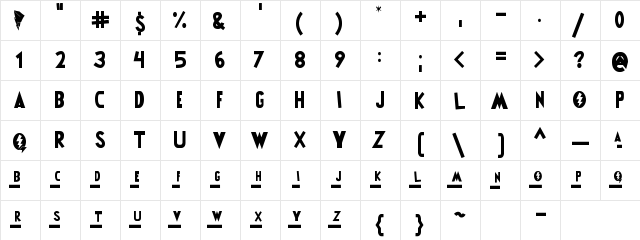
Power Rangers Regular
Design Context for Power Rangers Typeface
Power Rangers brings high-energy athletic personality to the page — its confident, muscular forms are built for impact.
A natural choice for gym brands, fantasy sports, jersey lettering, and action-driven headlines.
Font Pairing: Use alongside a condensed or geometric sans for supporting copy — keep the pairing bold, functional, and free of ornament.
Pro Tip: Use Power Rangers in all-caps headlines where its athletic energy can fully express itself. Pair with a solid, simple sans for supporting text.